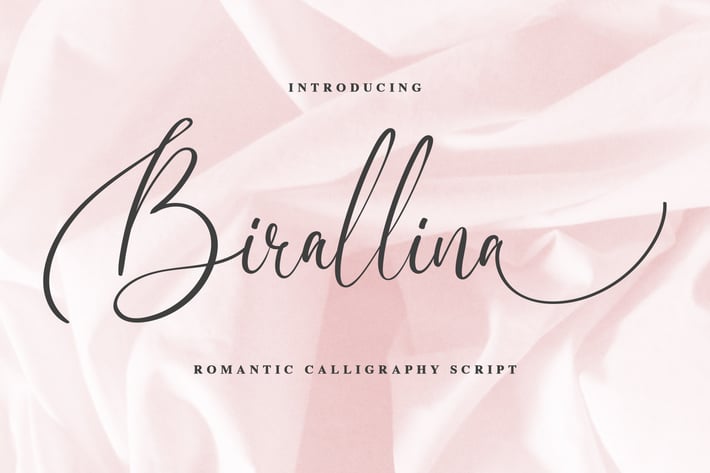
Birallina - Romantic Script Font
Introducing of our new product the name is Birallina Romantic Script Font inspired by beautiful woman's handwriting , Birallina is good for logotype, wedding invitation design, badge, headline, signature, packaging and any more.